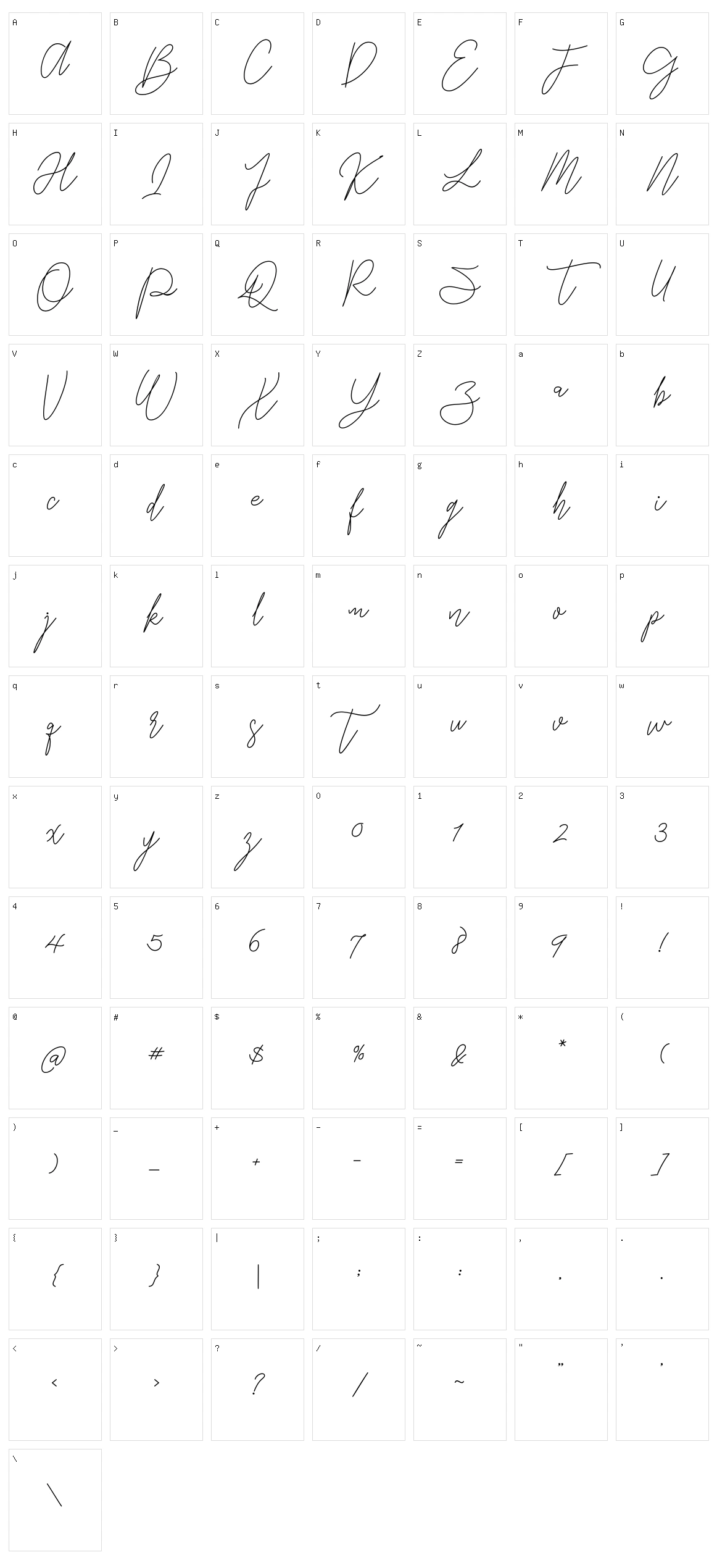
The free font Gredom is carefully designed by Solidtype, showcasing a thoughtful balance of creativity and usability and falls under the Script font style. When you download the ZIP file, it contains only 35.81 KB of font files, making it lightweight and quick to download. Please review the license details below to understand permitted usage and distribution rights. If license information is not available, we recommend using this font for personal projects only or contacting the author directly for commercial usage permissions.